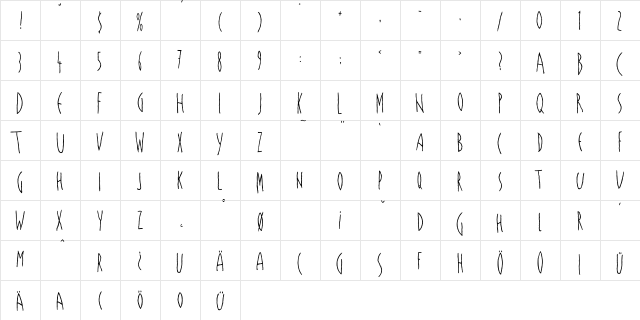
LasBonitas Medium Free Font
LasBonitas Medium
Design Context for LasBonitas
LasBonitas is a composed and adaptable typeface that performs quietly and consistently across a wide range of design contexts.
Pro Tip: Use LasBonitas in both headline and body roles to test its range before committing to a single application.